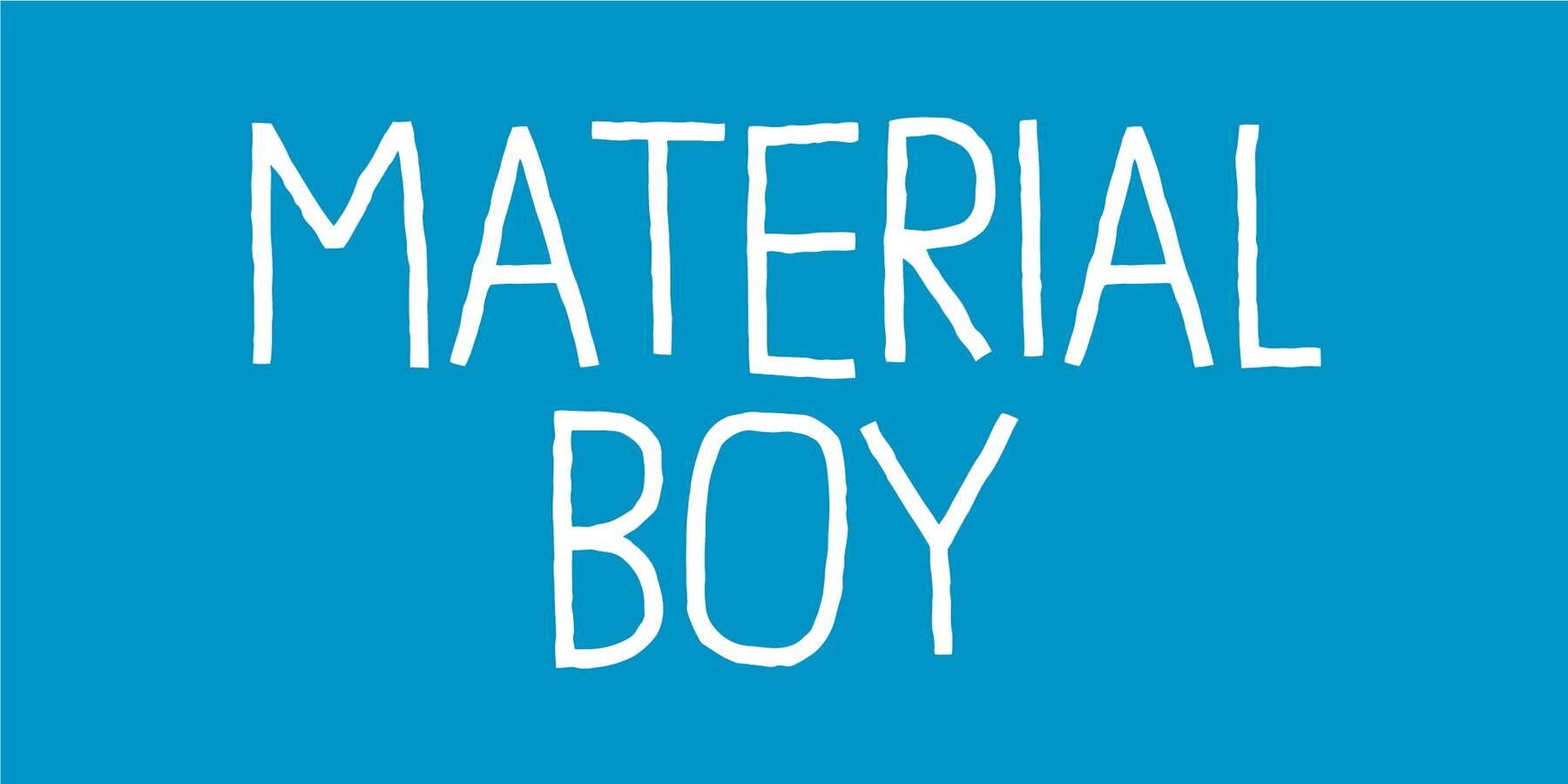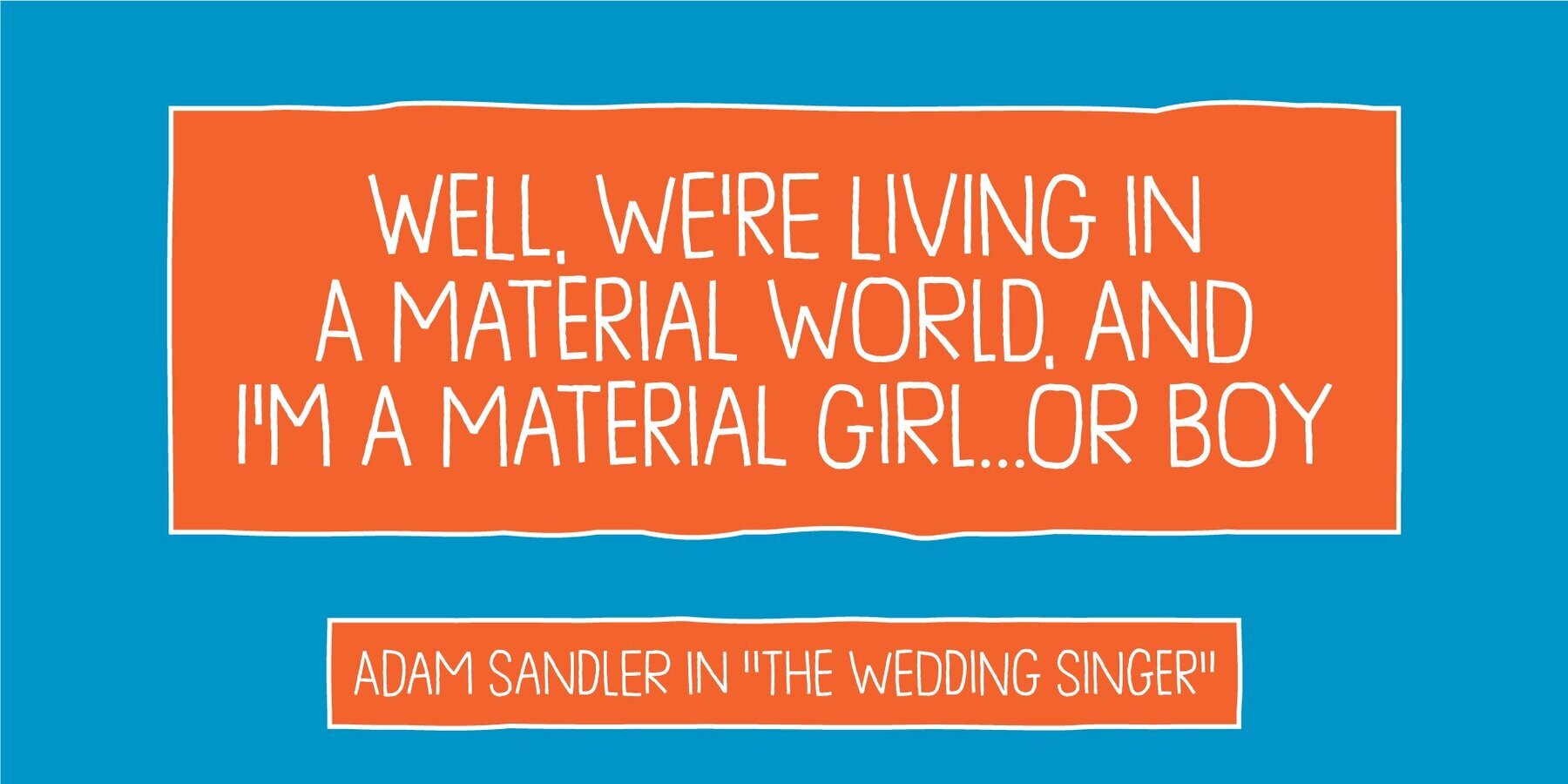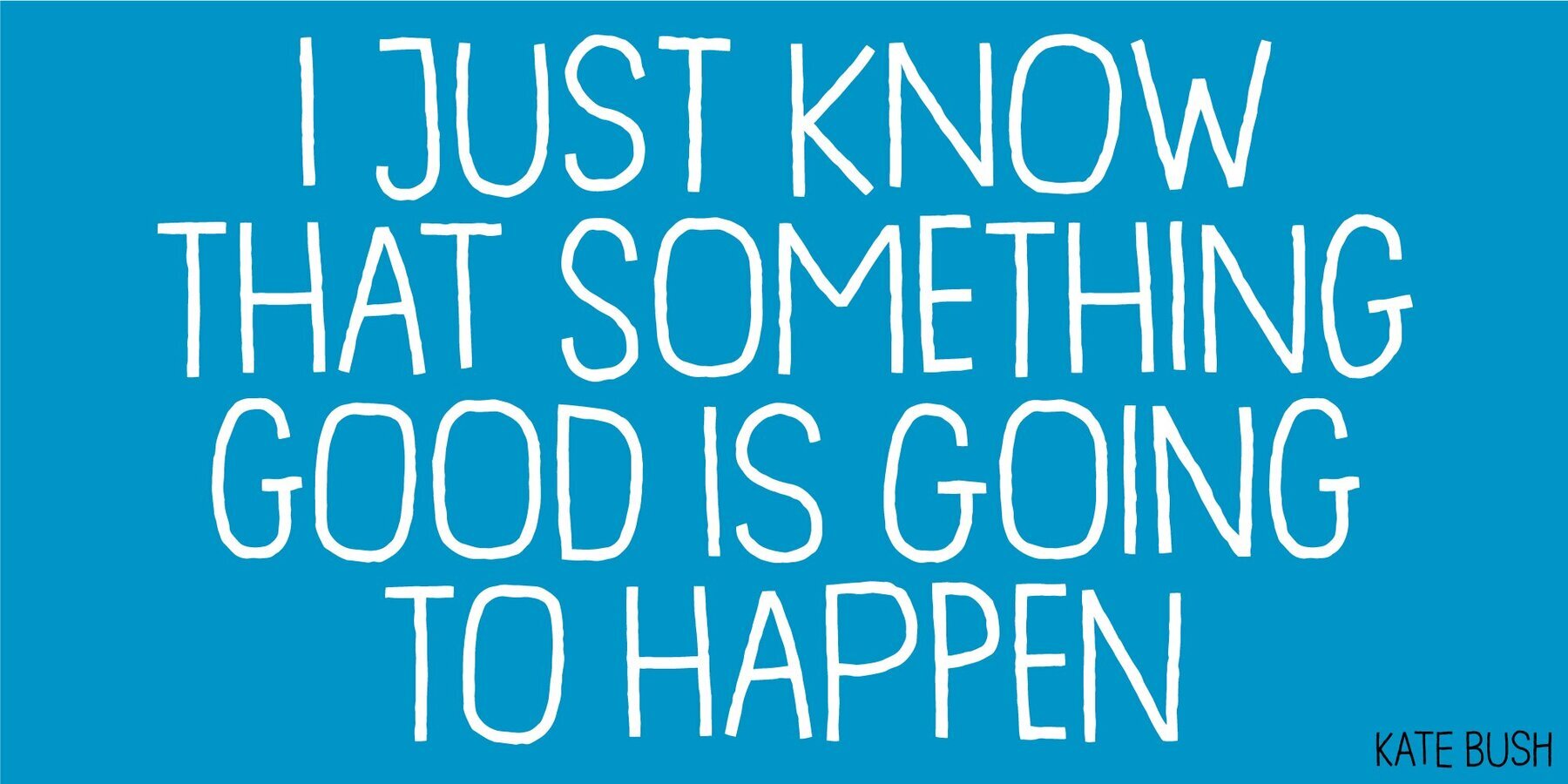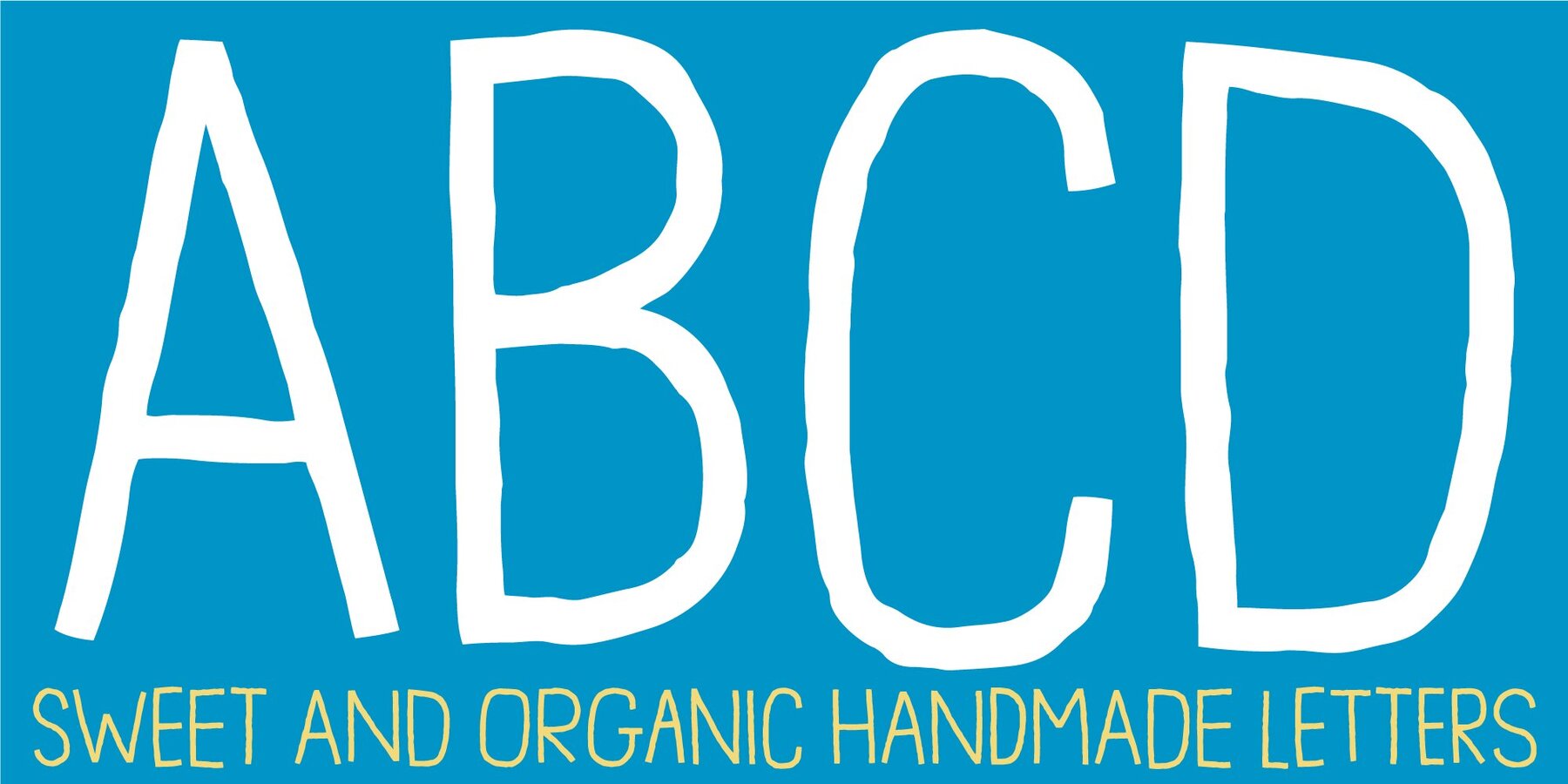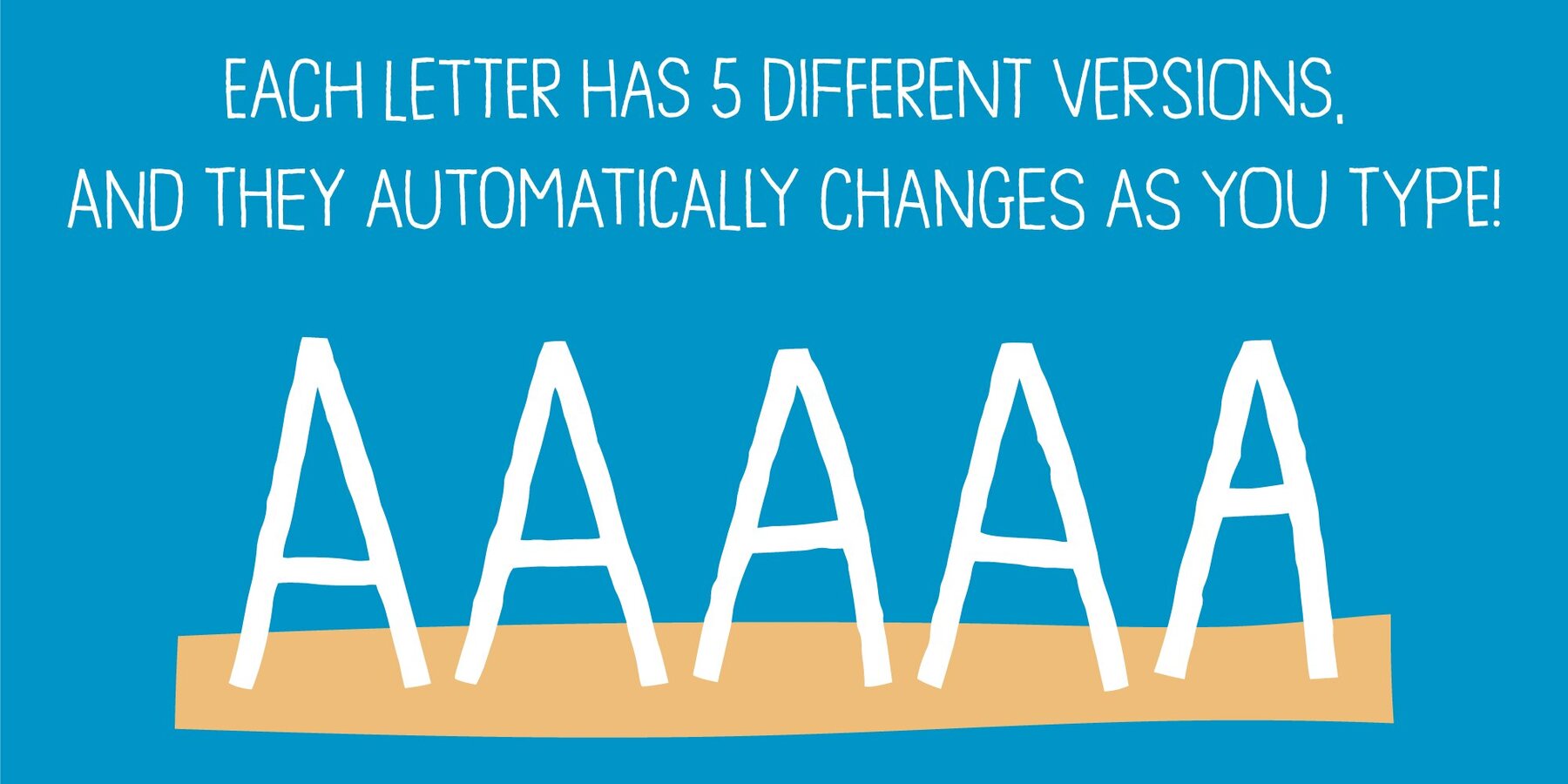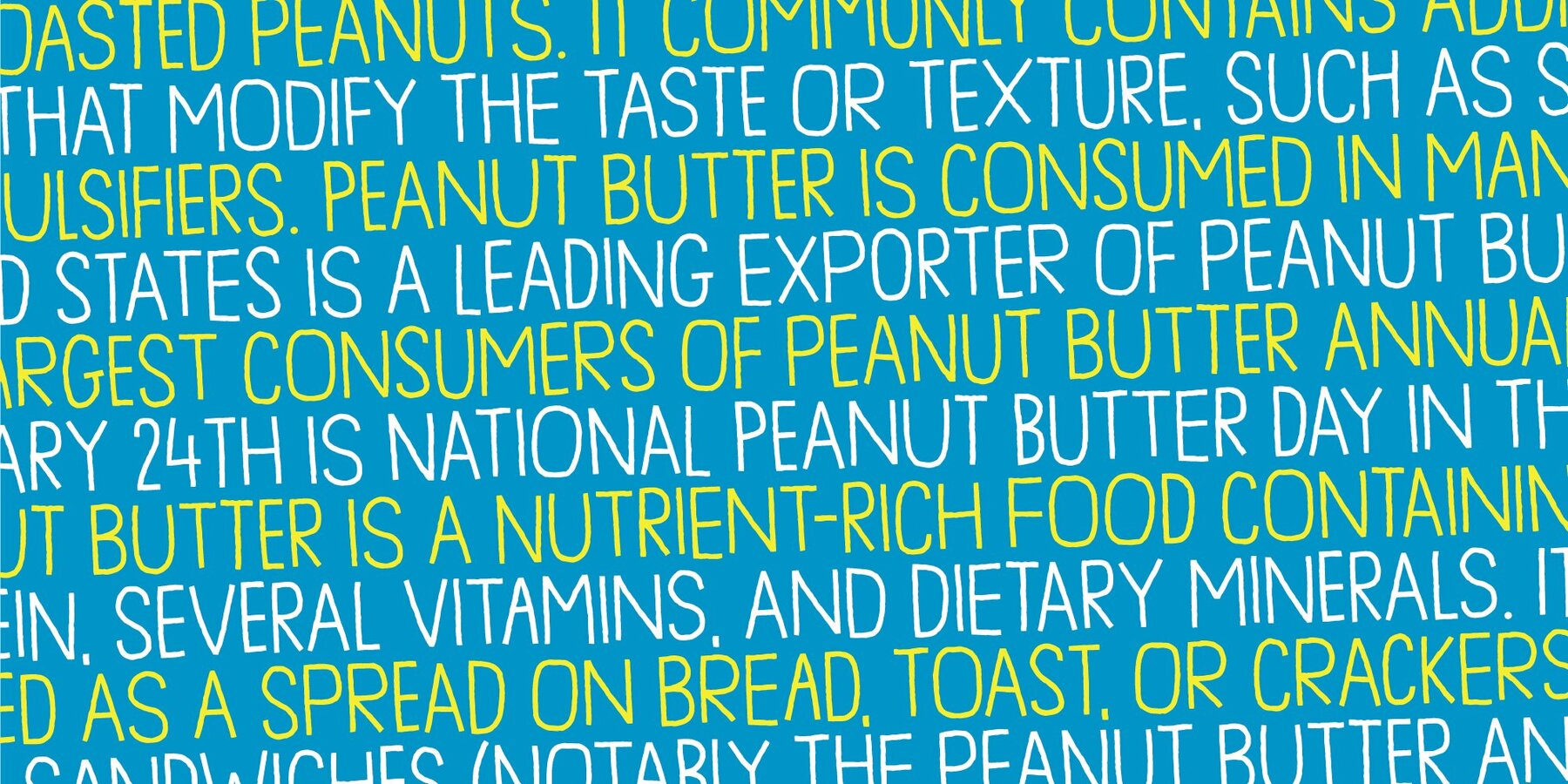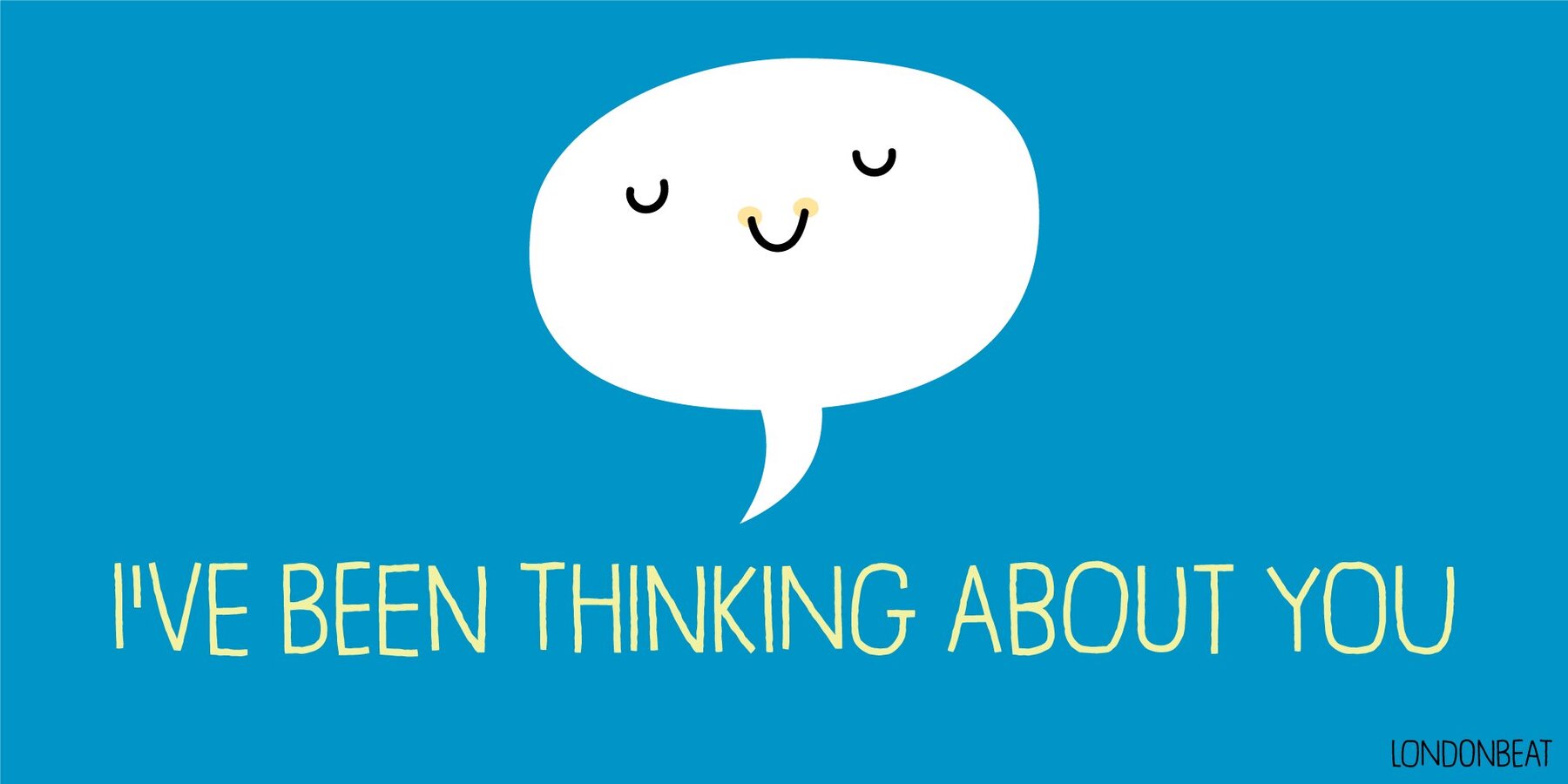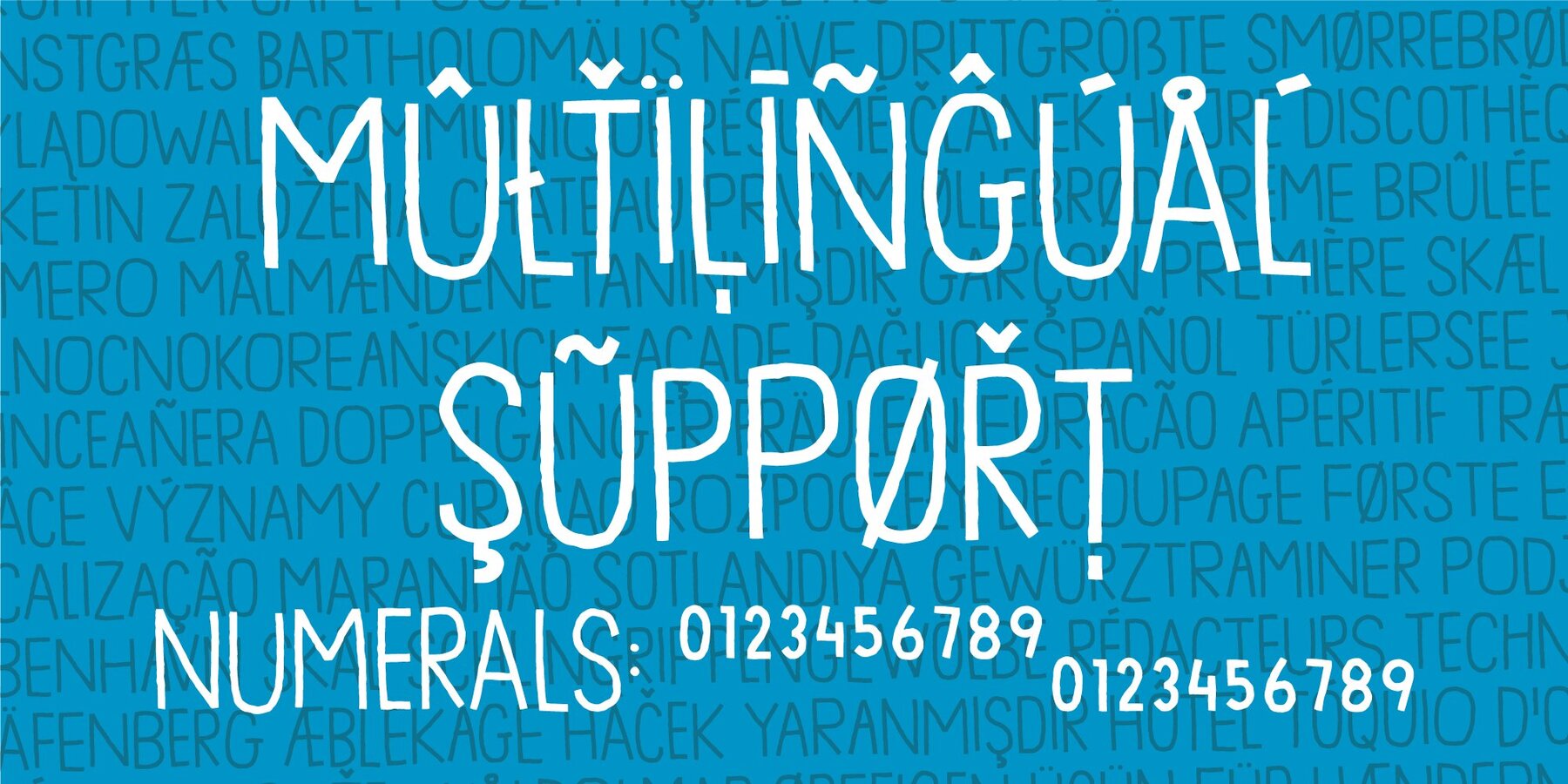
Material Boy 1
Yes, it is a clear reference to one of my all-time favourite movies: “The Wedding Singer”, but it is also a handmade, rough, organic looking ALL CAPS font. The letters are simple and legible, but vary in roughness and because of the Contextual Alternates, you get 5 different versions of each letter - leaving the text more lively and